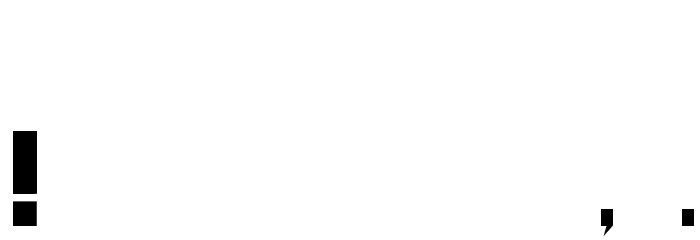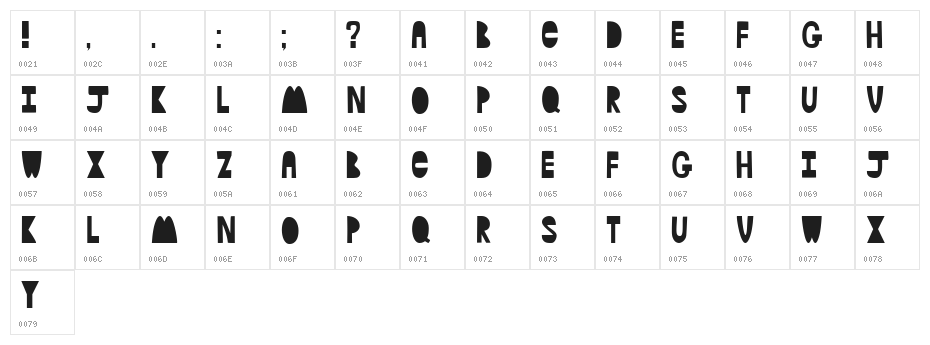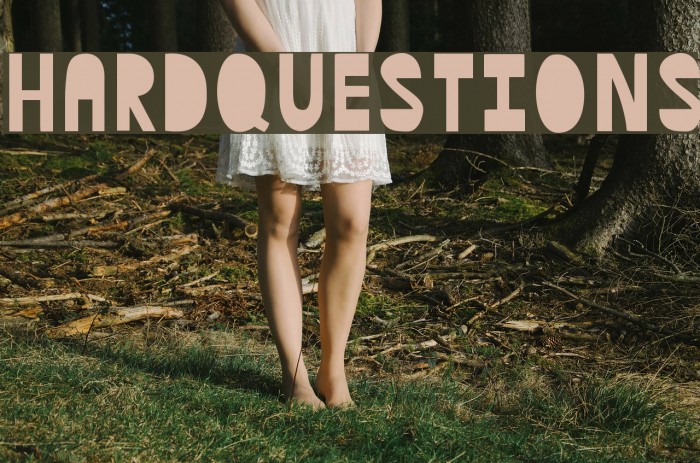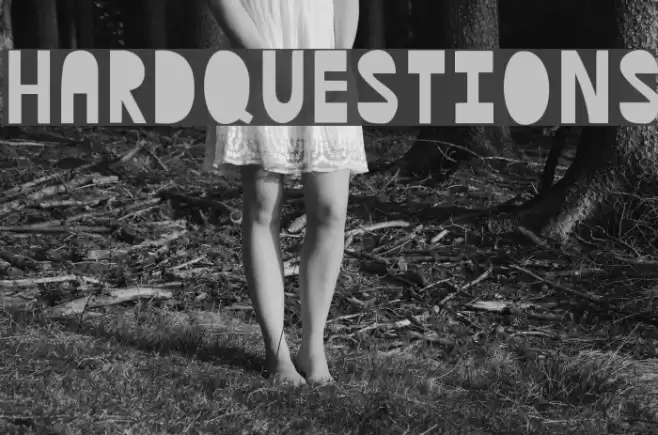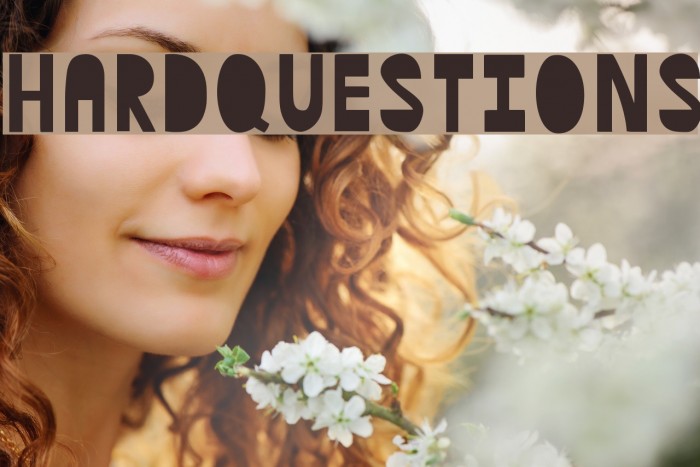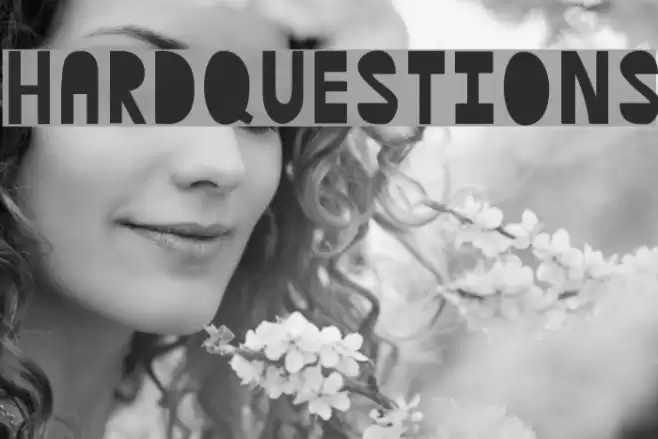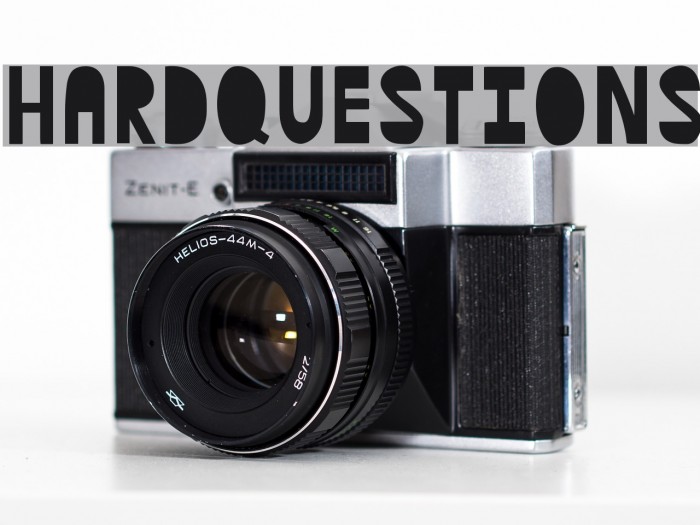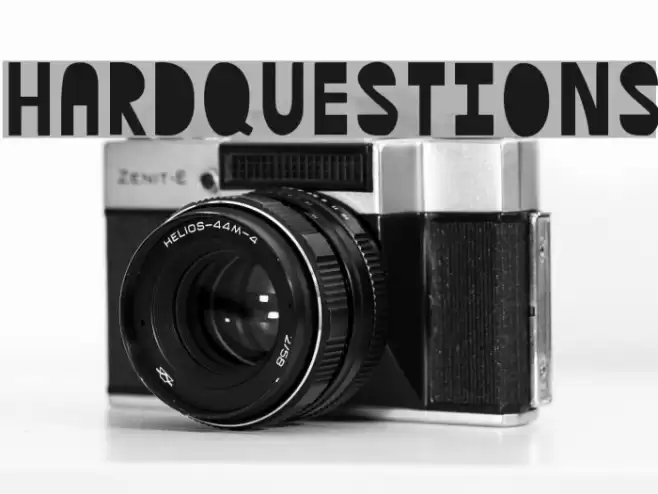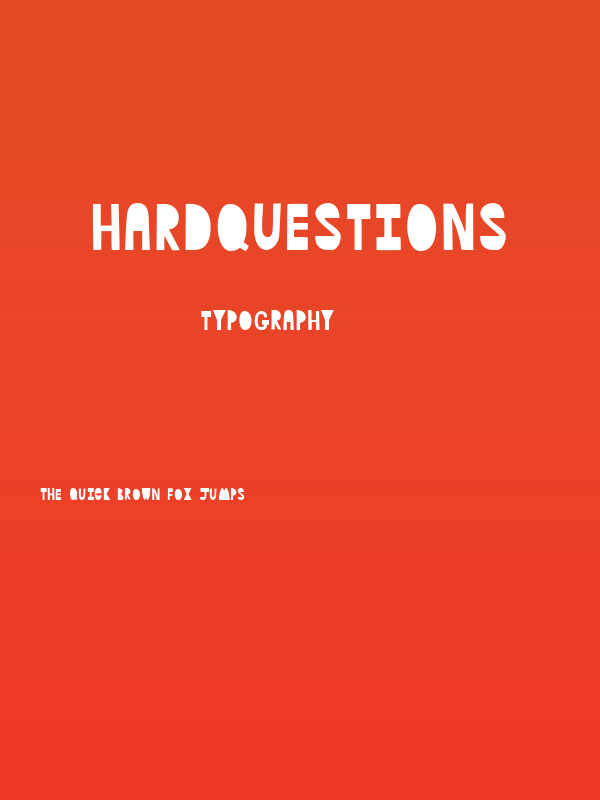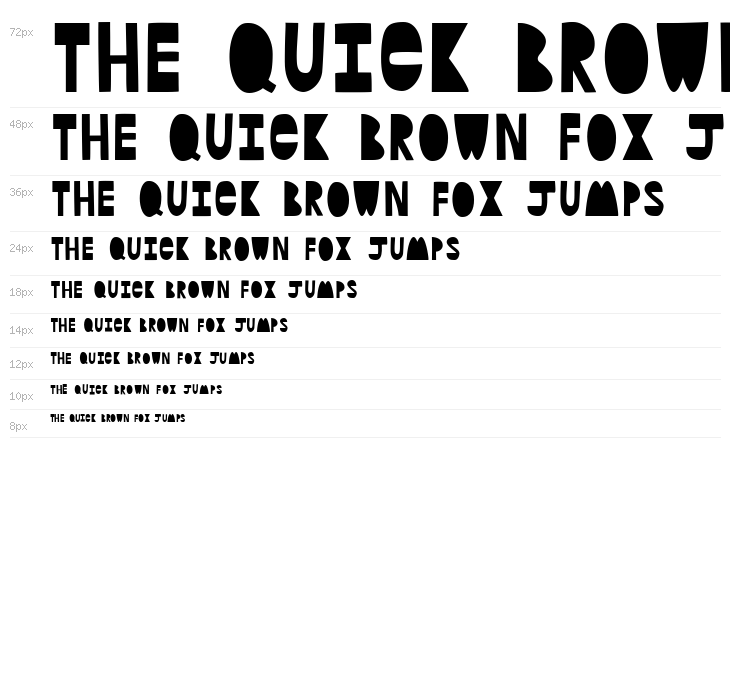
HardQuestions Font
HardQuestions Description
This font features a bold and playful design with a unique geometric style. The characters are crafted with a combination of sharp angles and rounded edges, creating a dynamic and eye-catching appearance. The uppercase letters are particularly distinctive, with some characters incorporating unexpected shapes and forms that add a sense of whimsy and creativity. The font's boldness makes it stand out, while its geometric elements give it a modern and artistic flair. The spacing between characters is relatively tight, contributing to its compact and impactful look. This font is well-suited for projects that require a strong visual presence and a touch of artistic expression.